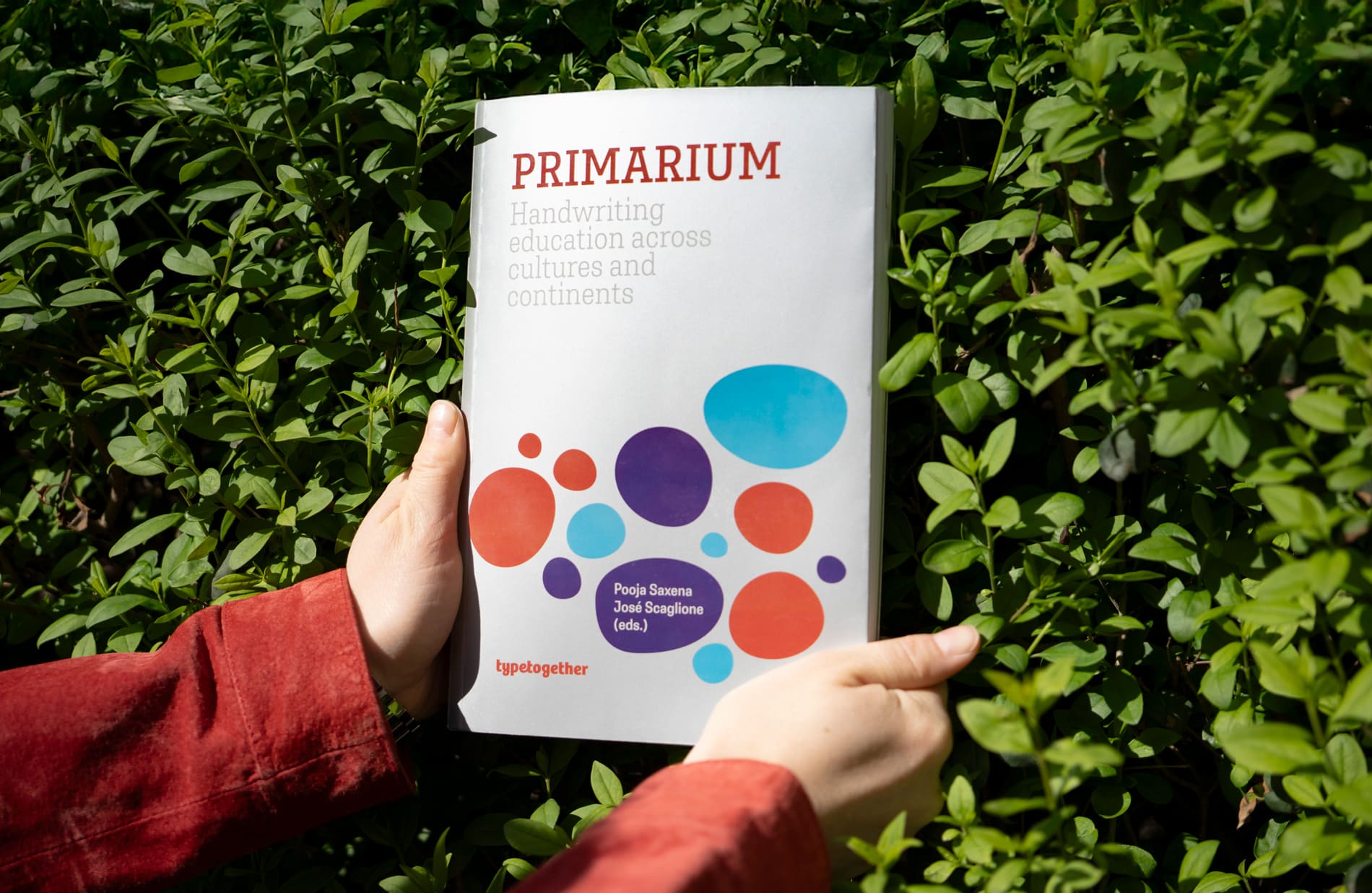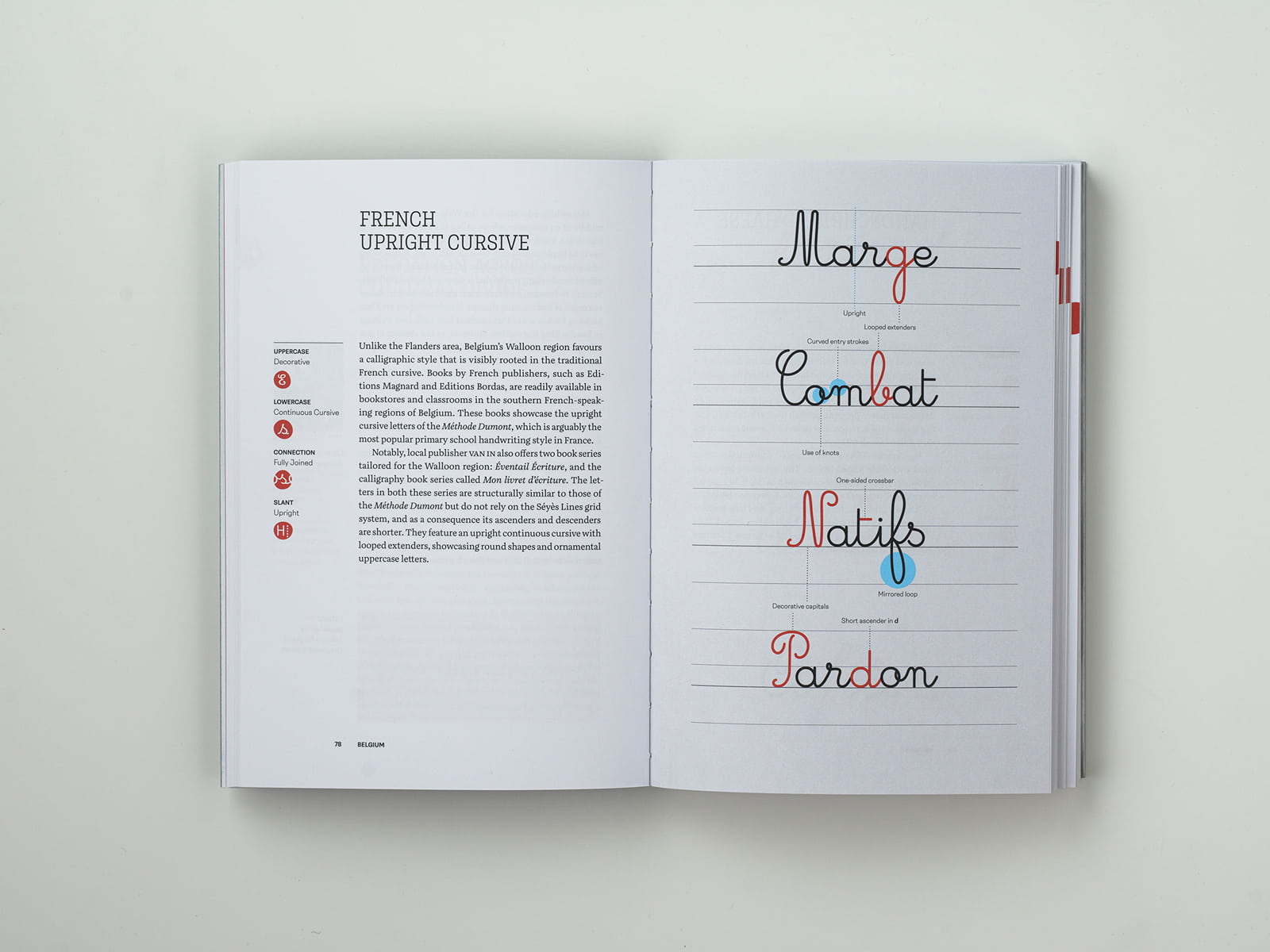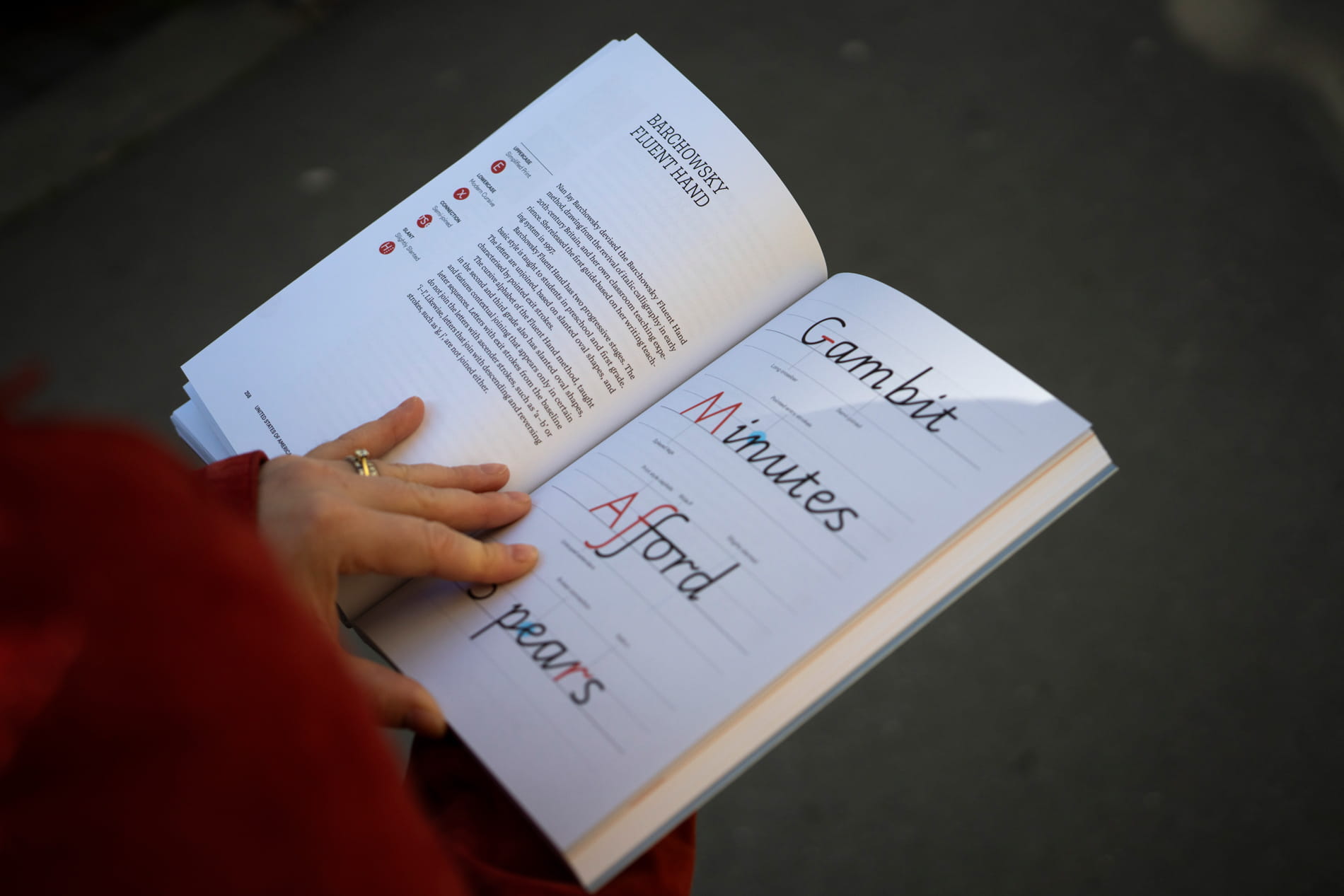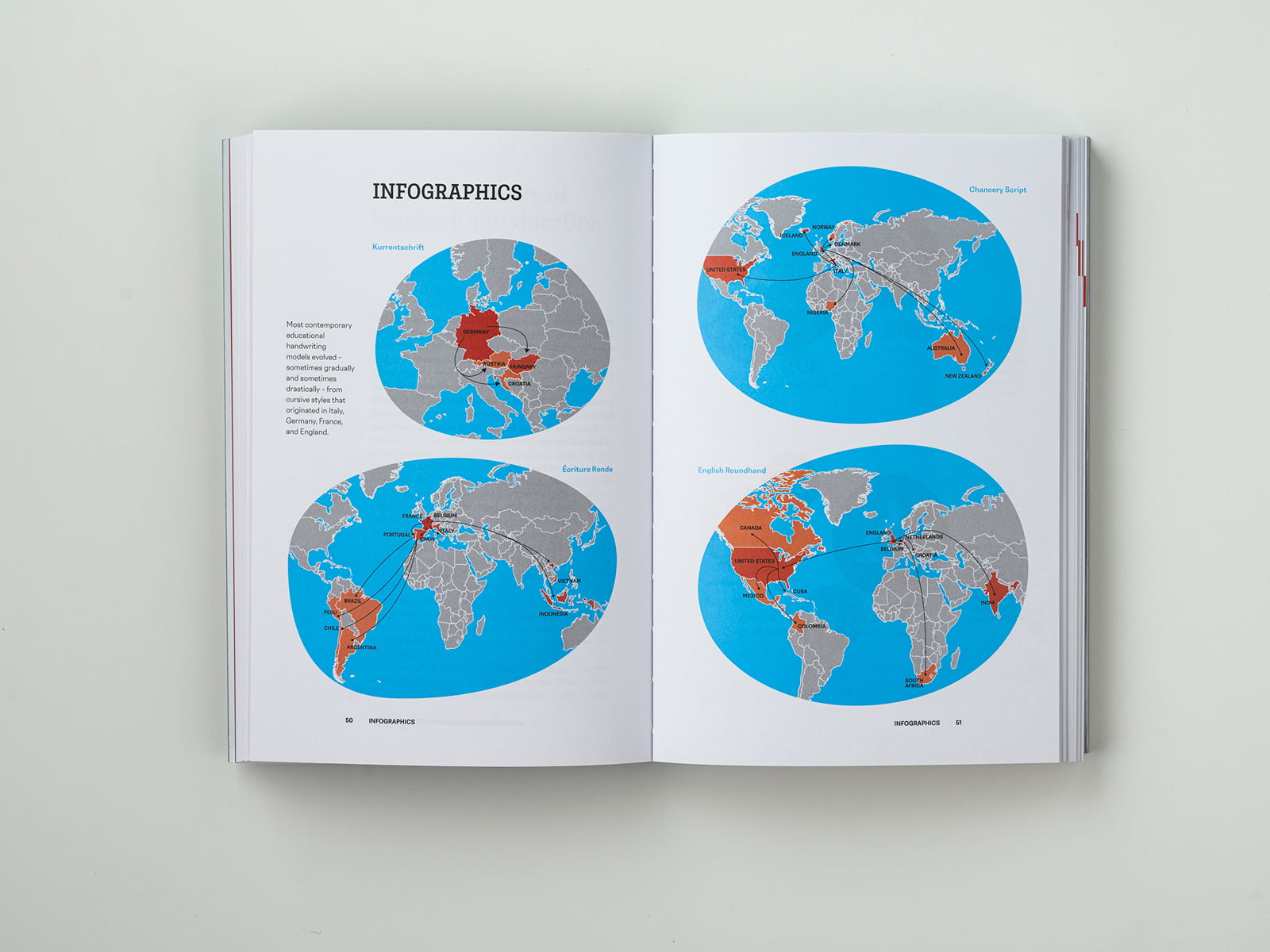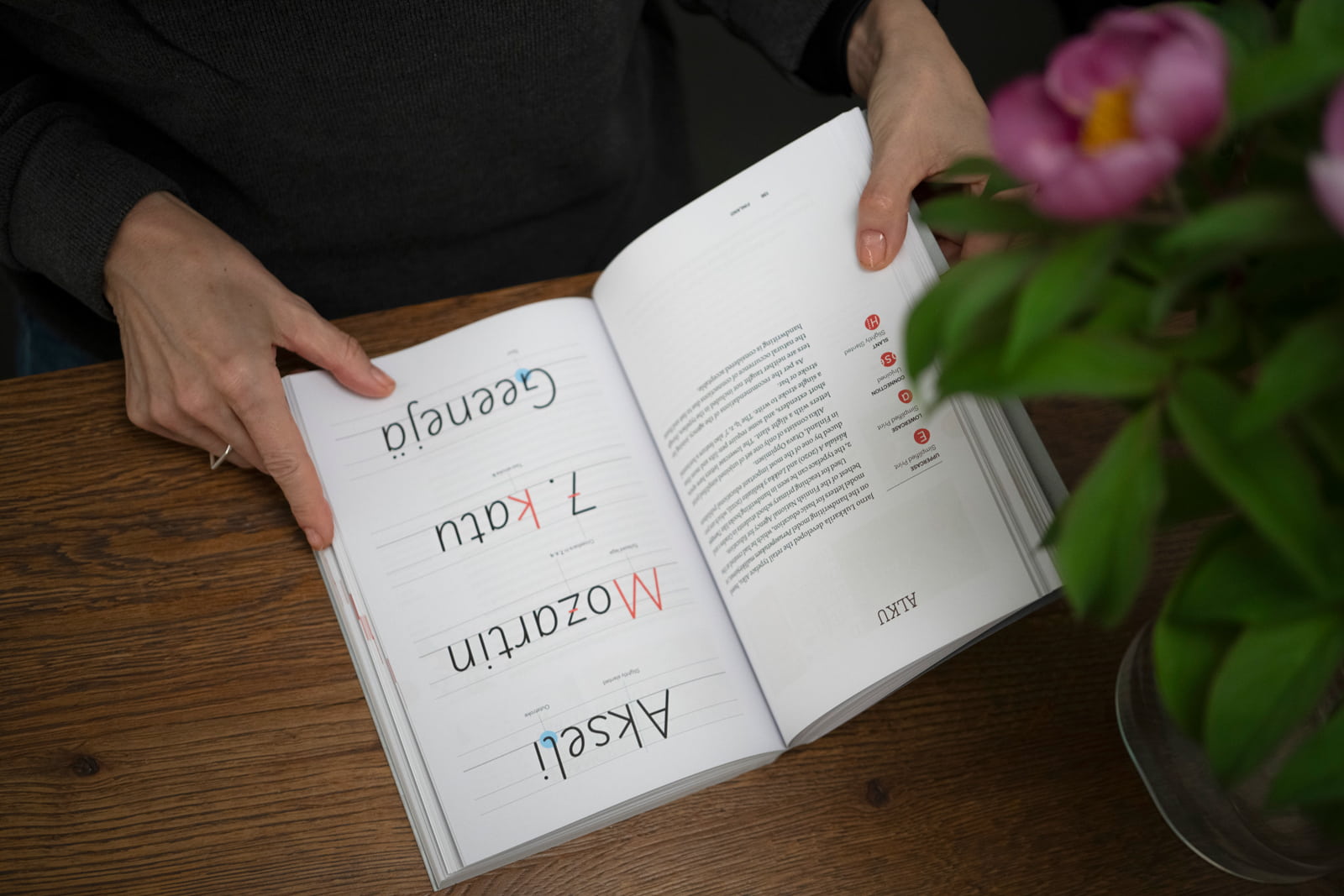
TypeTogether’s Primarium book released
Handwriting is taught in different ways around the world, but so far no one has collected this information in one accessible volume. After two years of extensive research across the Latin-based world, we are announcing the release of our book Primarium: Handwriting education across cultures and continents.
The core of the book features comprehensive analysis of handwriting instruction in 40 countries interspersed with a handful of essays about the benefits of handwriting, a short history of the Latin alphabet, and an introduction to the usefulness of TypeTogether’s free Playwrite font family for each of those countries. The Primarium book project was led by Linda Kudrnovská and is rendered in 360 beautiful pages, using Aneto and Belarius for text. Follow the link to purchase your copy and expand your understanding of this important topic.